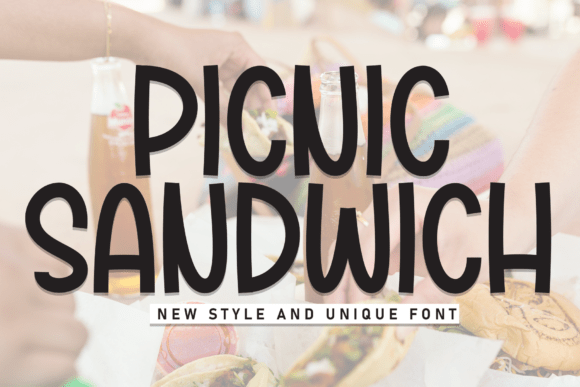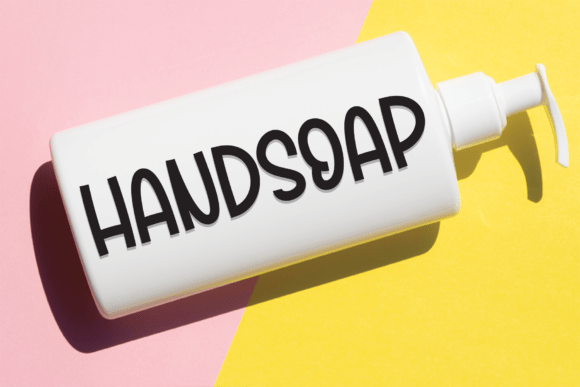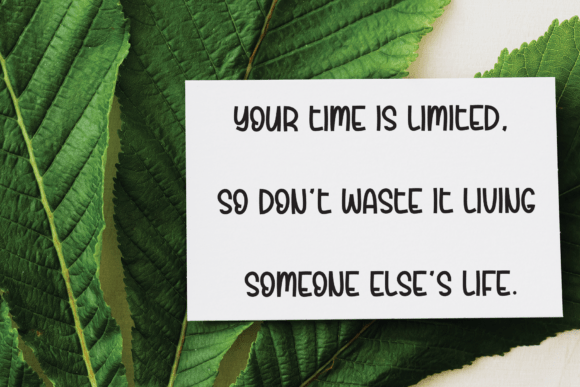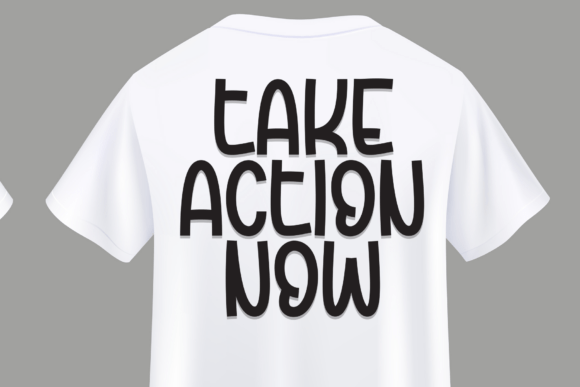
Picnic Sandwich Font
About the Picnic Sandwich Font
The wait is over! The incredible Picnic Sandwich Font is now available for your design toolkit. Picnic Sandwich is a bold, lively display font designed for food lovers and creative projects with flavor. Its chunky letters and slightly whimsical shape make it ideal for café menus, snack branding, picnic-themed posters, and friendly, appetizing designs. It’s deliciously fun and packed with personality.
Picnic Sandwich excels in headlines, short taglines, and logos where its playful boldness shines. It’s perfect for branding projects focused on food, children’s products, or events with a fun, approachable vibe. Avoid using it for large blocks of text or body copy; its chunky forms reduce readability in extended use.
Consider pairing Picnic Sandwich with a clean sans-serif like Open Sans for body text to create visual balance. For a more playful feel, a rounded geometric sans-serif would also complement its curves. A delicate script font could add a touch of elegance to more sophisticated applications, creating interesting contrast.
The font’s core personality is cheerful and friendly, conveying approachability and a sense of lighthearted fun. It’s best suited for brands and projects that want to communicate warmth and approachability.
Picnic Sandwich Font Usage Examples
Picnic Sandwich Font Example